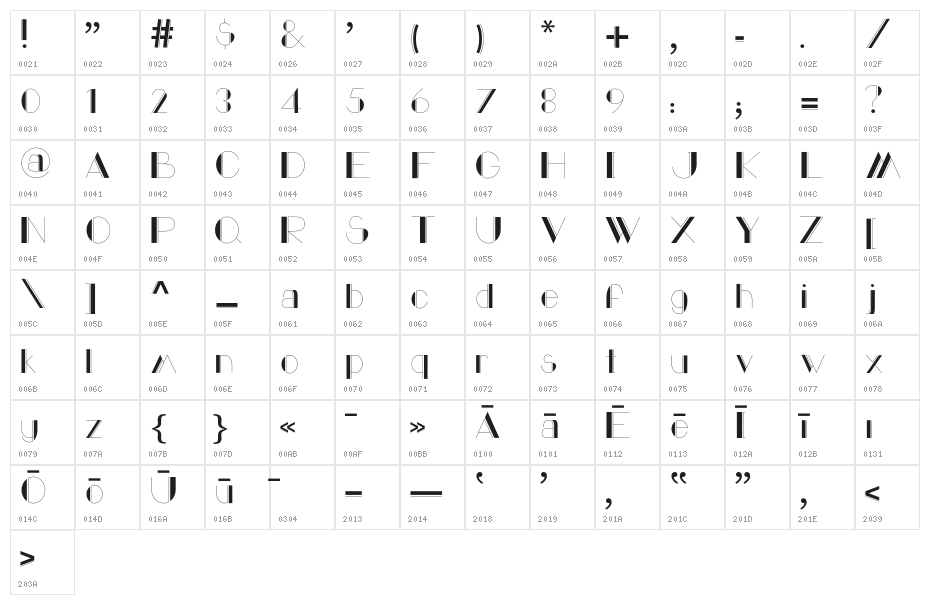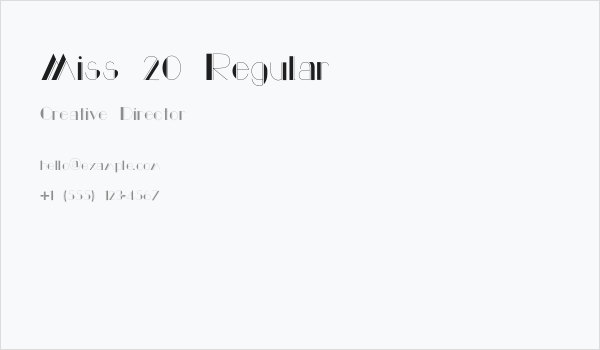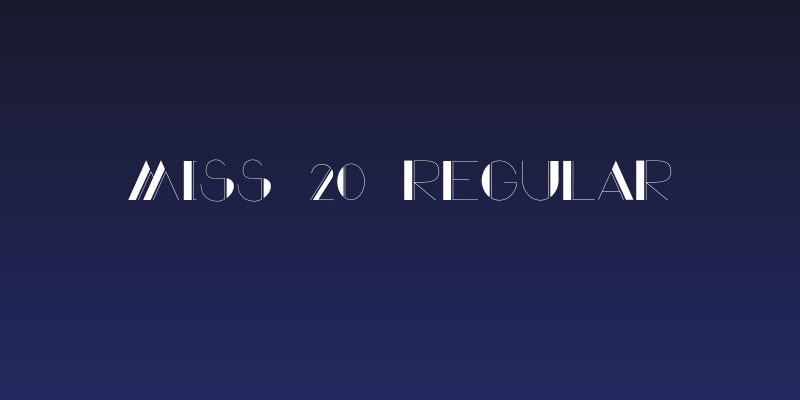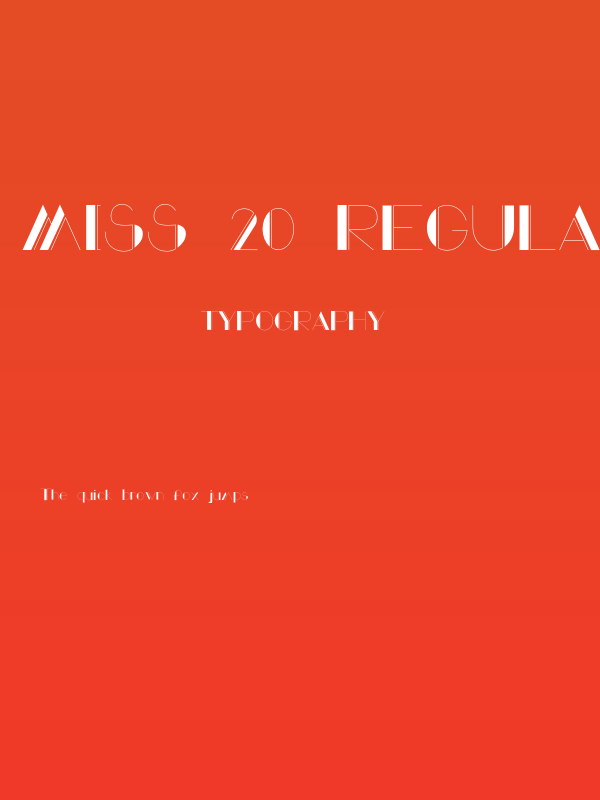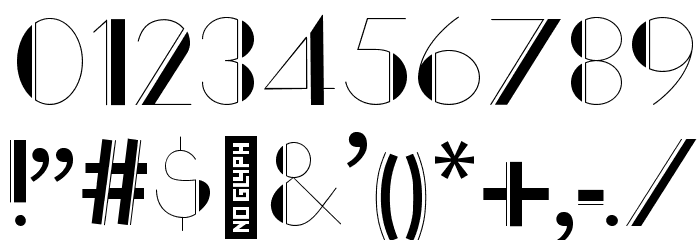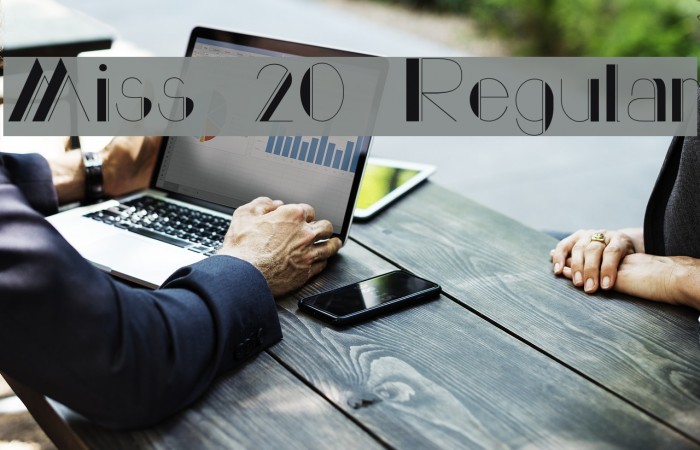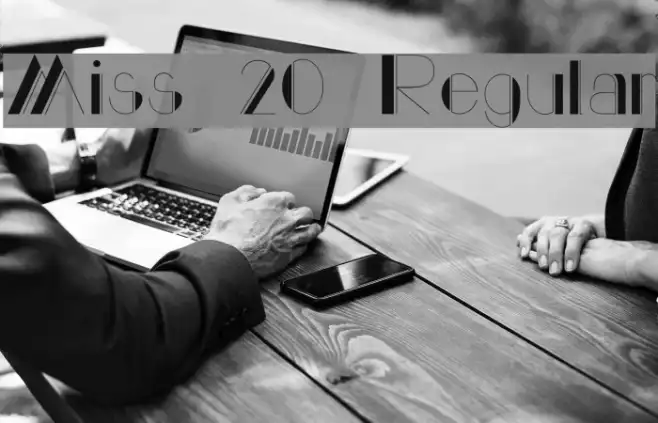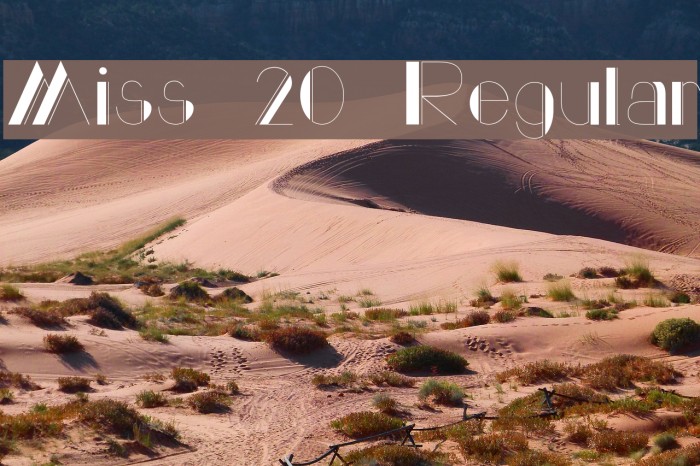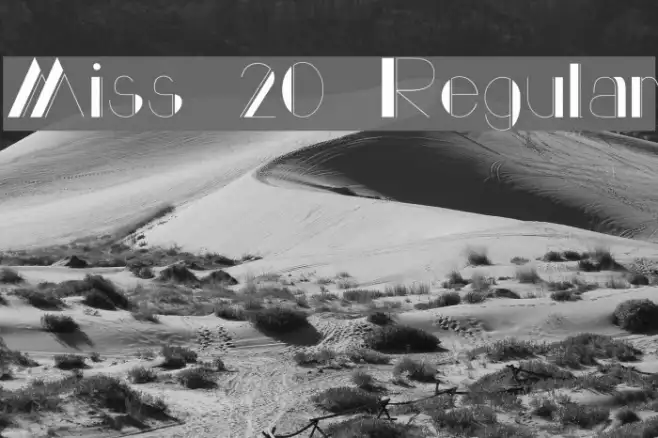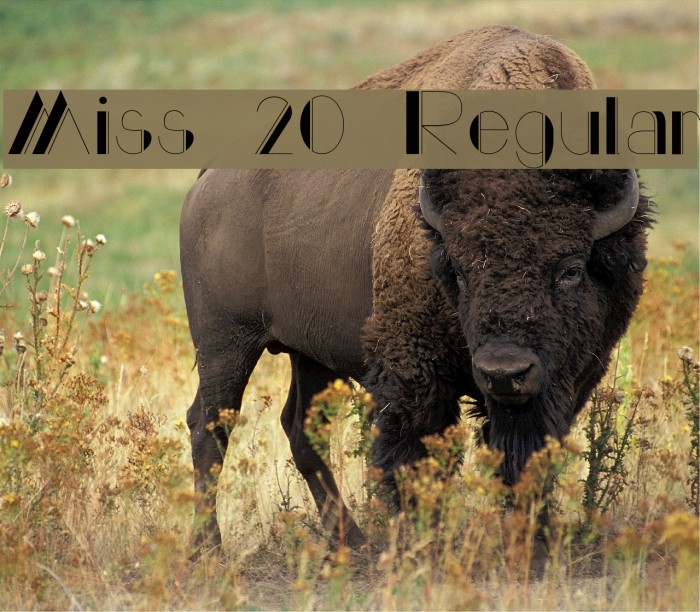
Miss 20 Regular Font
Miss 20 Regular Description
This font features a modern and stylish design with a unique blend of geometric and artistic elements. The uppercase letters are characterized by bold, straight lines combined with elegant curves, creating a striking contrast. The lowercase letters maintain a similar aesthetic, with a slightly softer approach. Numbers and special characters follow the same design principles, ensuring consistency throughout. The font's distinct style makes it ideal for creative projects that require a contemporary and sophisticated look.
| Proposed Projects | Ideal for branding, advertising, fashion magazines, and modern art projects. |